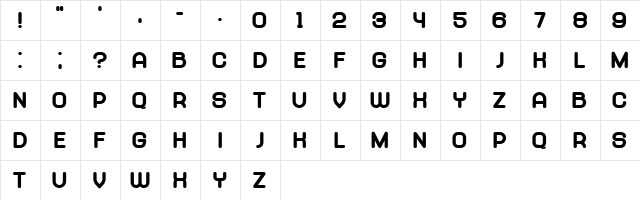
Abandoned Ultra
Design Context for Abandoned Typeface
Abandoned is a composed and adaptable typeface that performs quietly and consistently across a wide range of design contexts.
Pro Tip: Pair Abandoned with a font of contrasting weight or personality to build a more expressive typographic hierarchy.